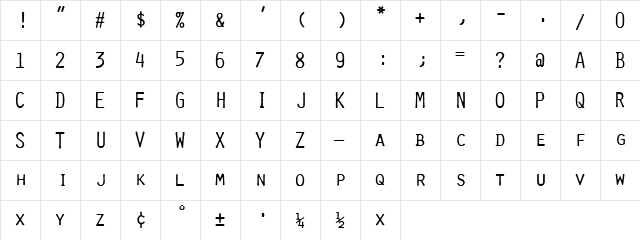
Selectric Orator Regular
Design Context for Selectric Orator Typeface
Selectric Orator channels digital-age aesthetics through its sharp, structured letterforms — ideal for brands that want to signal innovation.
Pro Tip: Use Selectric Orator in combination with a neutral sans for body text. Let it define the brand voice in headlines while keeping reading comfortable elsewhere.